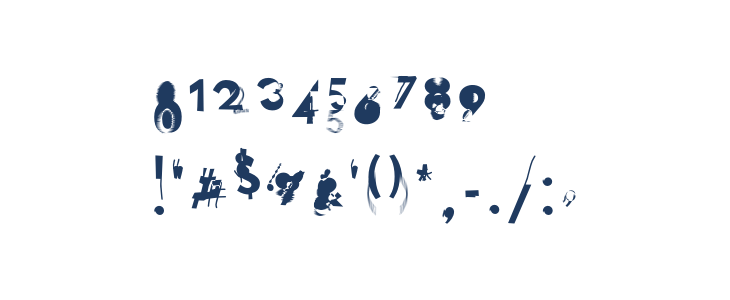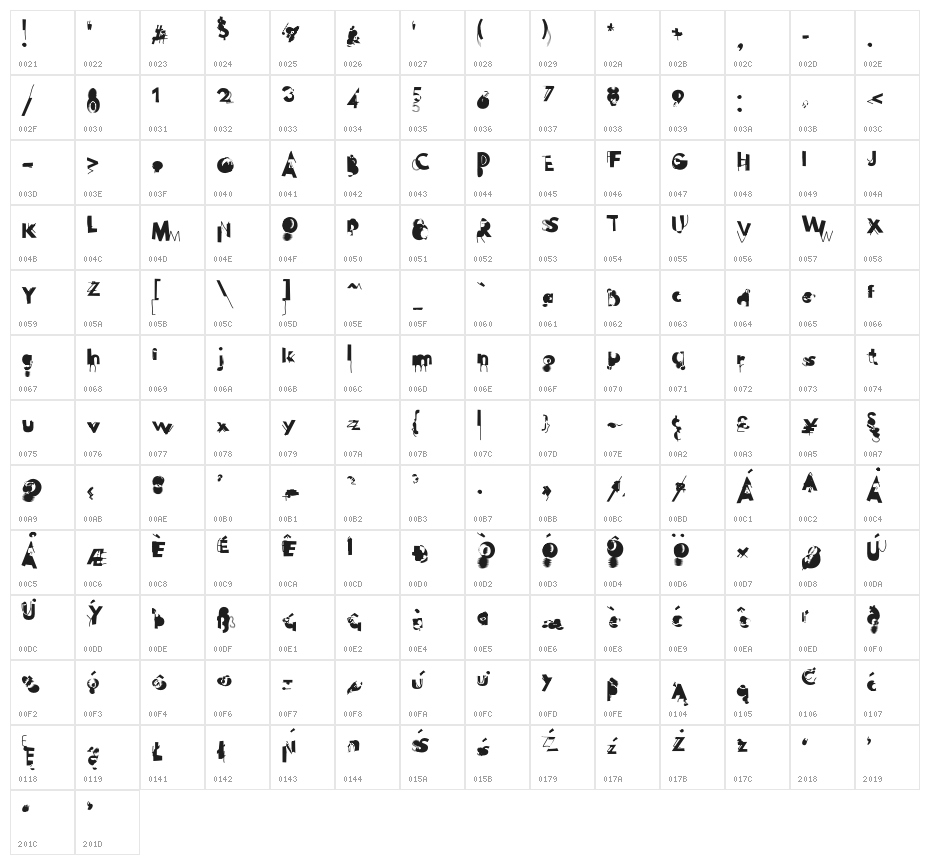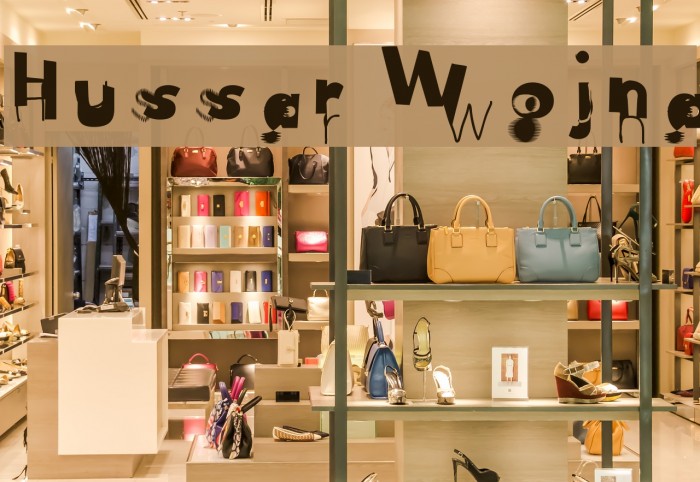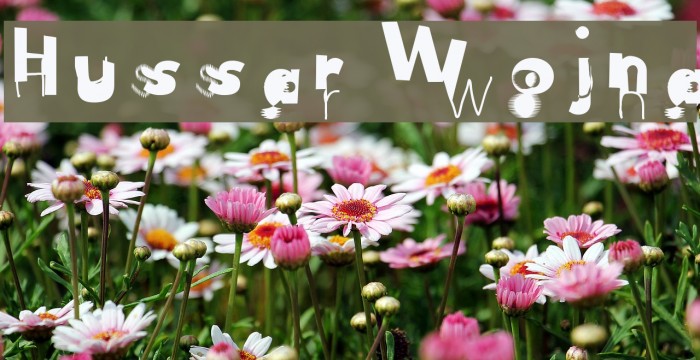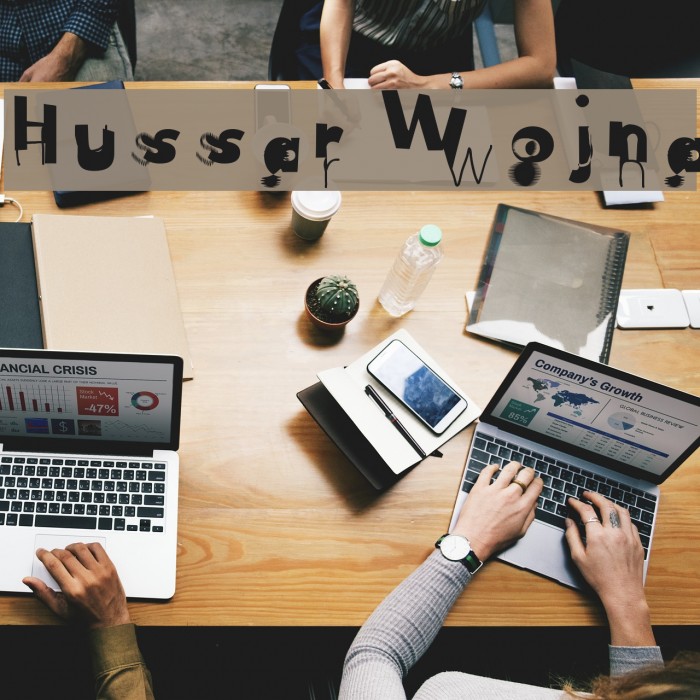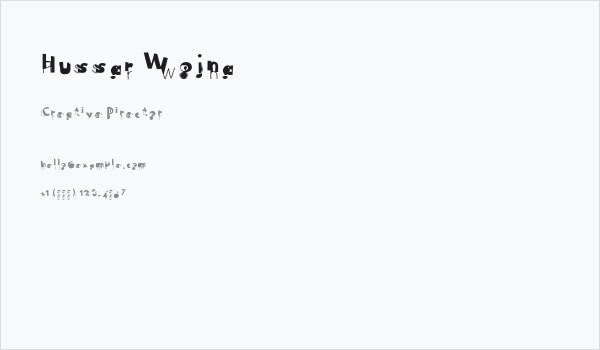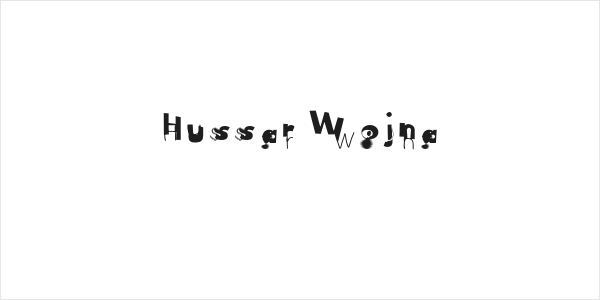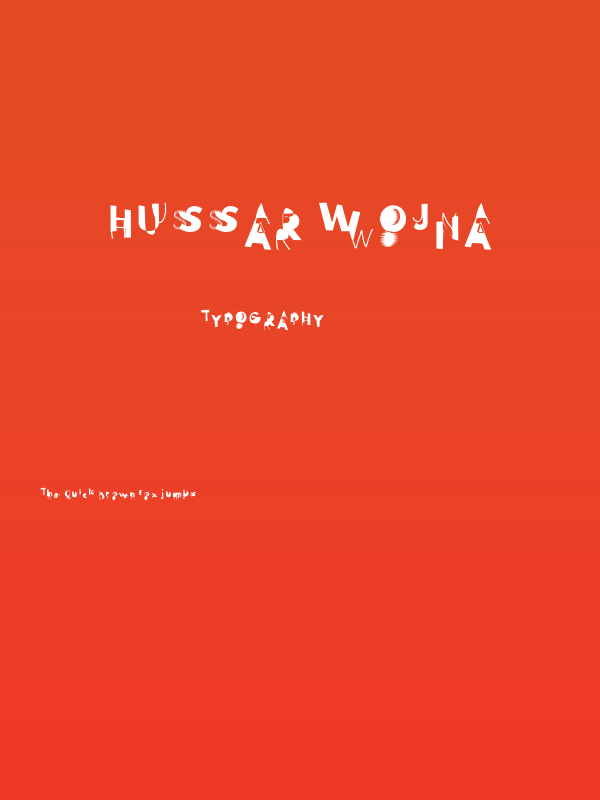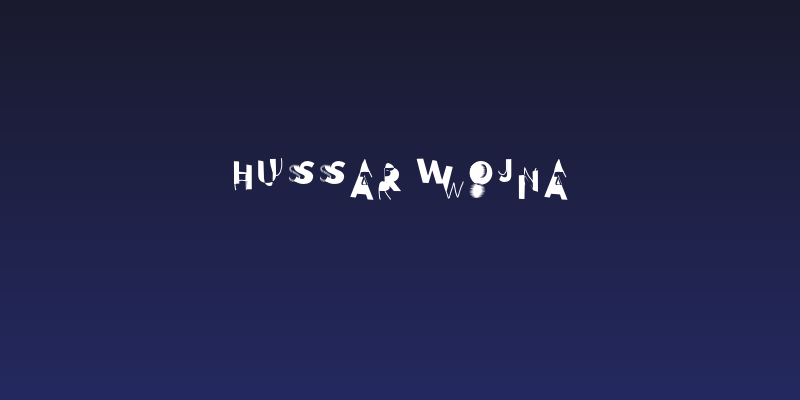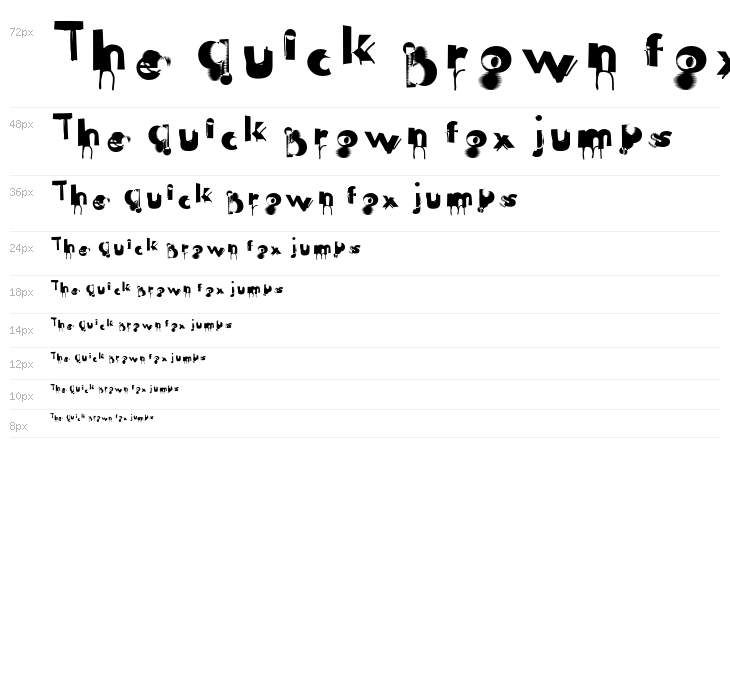
Hussar Wojna Font
Hussar Wojna Description
This font features a highly artistic and experimental design, characterized by its distorted and fragmented letterforms. Each character appears to be deconstructed, with varying levels of opacity and unique visual effects that give it a dynamic and chaotic appearance. The uppercase and lowercase letters, as well as numbers and special characters, all share this distinctive style, making it a bold choice for creative projects. The font's irregular shapes and abstract elements suggest movement and energy, making it suitable for modern and avant-garde designs.
| Proposed Projects | Ideal for album covers, experimental posters, modern art projects, and edgy branding. |